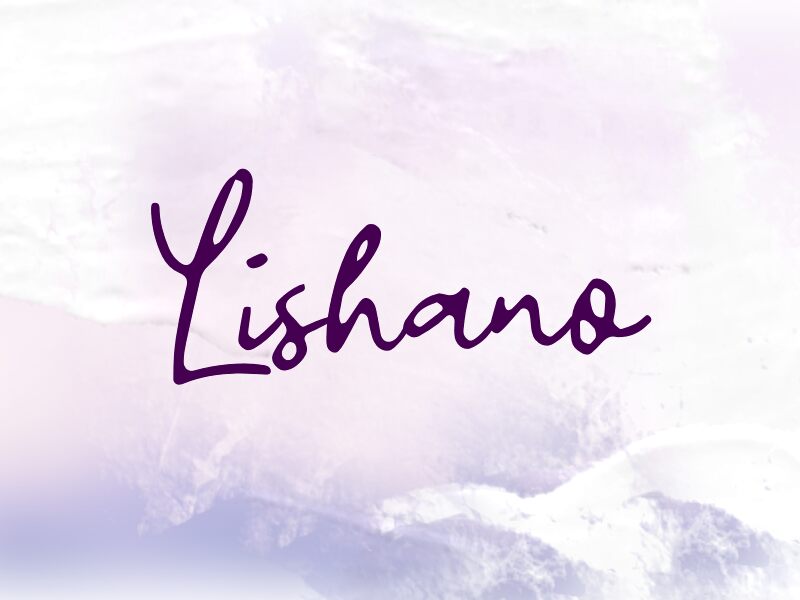
L Lishano font is a delicate handwritten font that combines elegance with an informal vibe. A free font from wepfont.com, its distinctive look captures an expressive character that evokes authenticity. This personal touch can be associated with personal branding or freelance projects whose “life” gains value with even the smallest changes. And all it takes with this tool is the written body copy with its contemporary impression!
L Lishano comes with basic alphabets, numbers, and punctuations so its use can be versatile. But most designs created with this font are usually intended for the long run, like invitations featuring a romantic ceremony awaiting the attendees, or greeting cards that remind its readers of an important date, preparing them for the attention they’ll give to its design soon.
Lishano is a stylish and contemporary free font that adds a modern flair to your design projects. This versatile typeface is perfect for creating eye-catching headlines, branding materials, and digital content. With its unique character set and clean lines, Lishano stands out in any context, enhancing the overall aesthetic of your work.